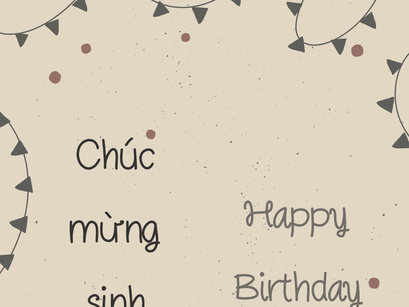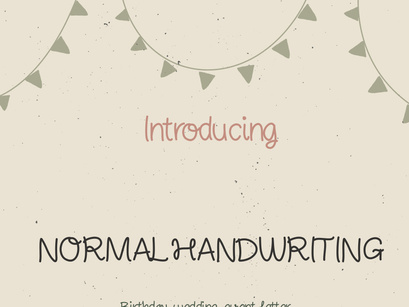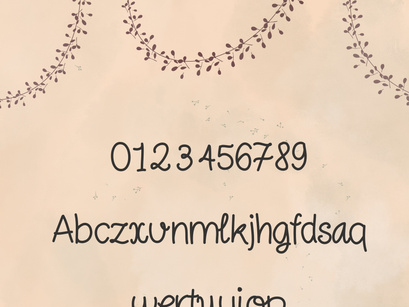
Normal handwriting font for branding, posters, invitations, social media graphics, and any creative projects
Normal handwriting Hien
Features:
• Accents (Multilingual Characters, including full Vietnamese support)
This font is designed to deliver a natural handwritten look while ensuring compatibility with multiple languages, especially Vietnamese. It is perfect for branding, posters, invitations, social media graphics, and any creative projects that require a friendly and modern handwriting style.